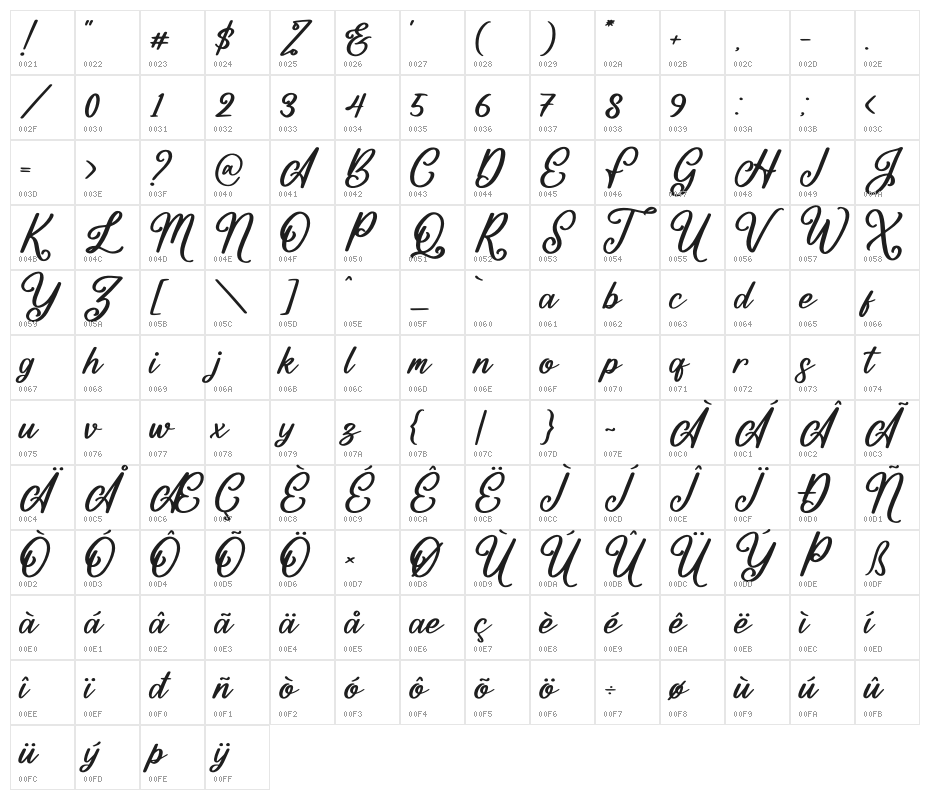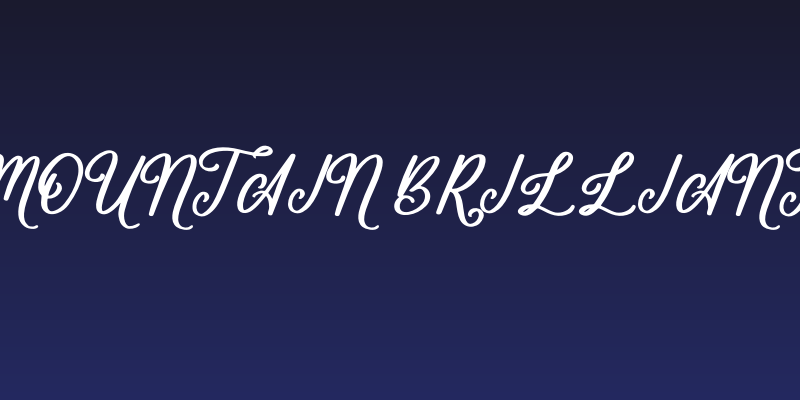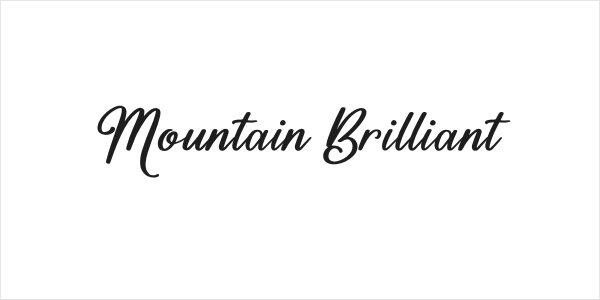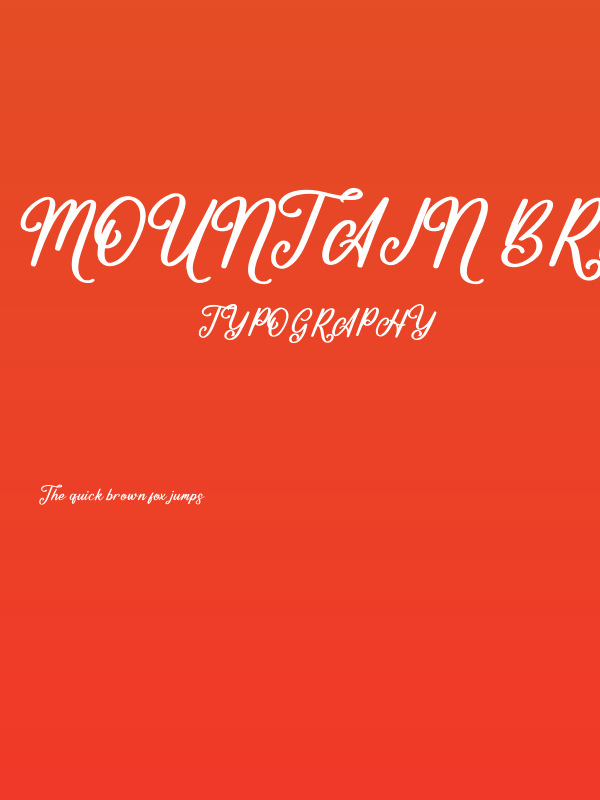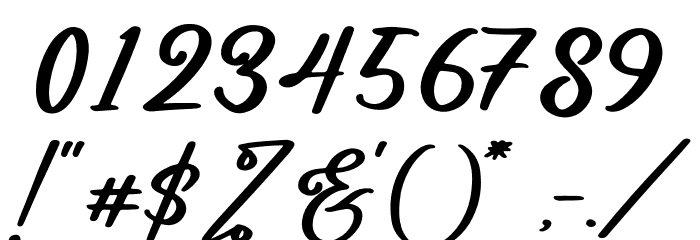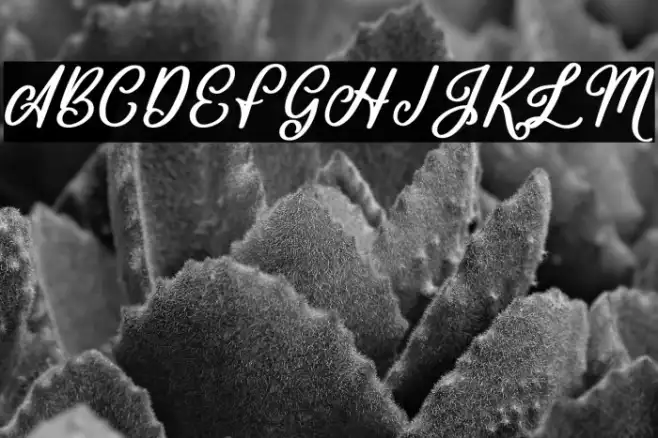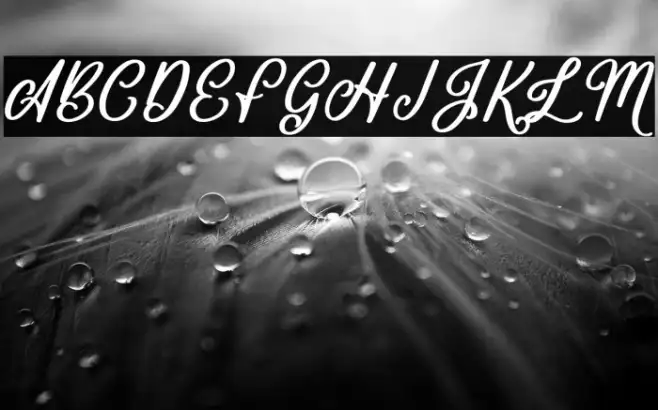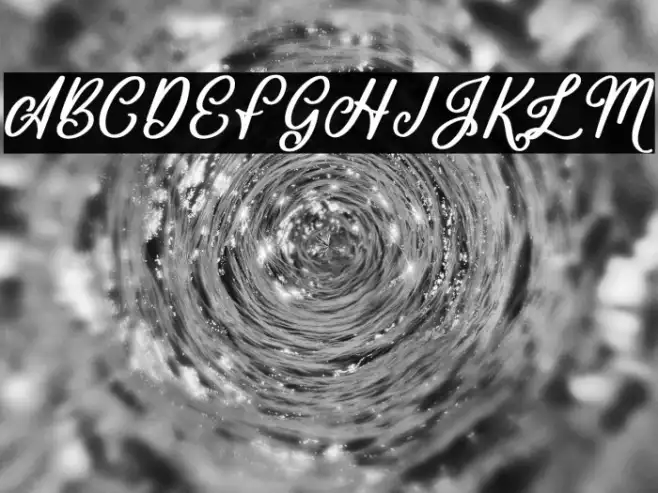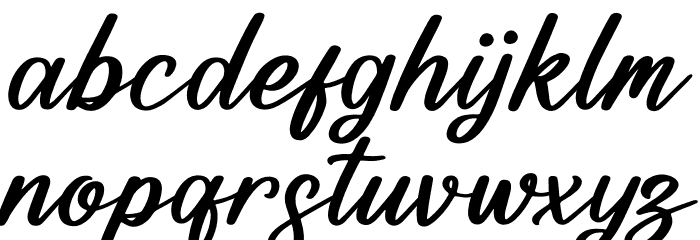
Mountain Brilliant Font
Mountain Brilliant Description
This font features an elegant and flowing script style, characterized by its smooth, cursive letterforms that convey a sense of sophistication and grace. The uppercase letters are adorned with subtle flourishes, adding a decorative touch without overwhelming the overall readability. The lowercase letters maintain a consistent slant and are slightly more compact, ensuring a harmonious balance between the characters. The numerals are styled to match the script's fluidity, with gentle curves and a uniform thickness that complements the alphabet. Special characters are thoughtfully integrated, maintaining the font's cohesive aesthetic. This font is ideal for projects that require a touch of elegance and personal flair.
| Categories | Script |
| Overall Style | Elegant |
| Use Case | Logos, Invitations, Decorative text |
| Proposed Projects | Wedding invitations, greeting cards, branding, and logo design. |